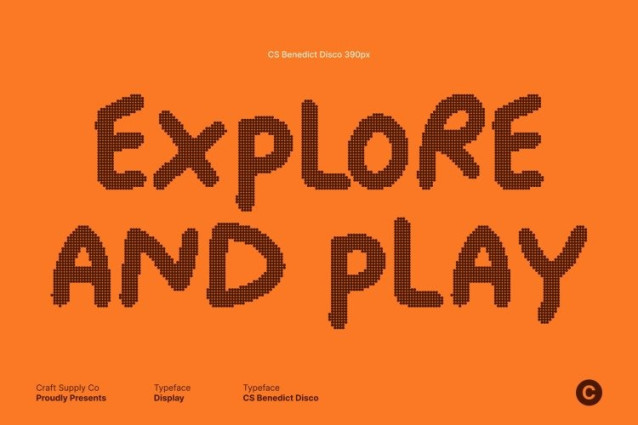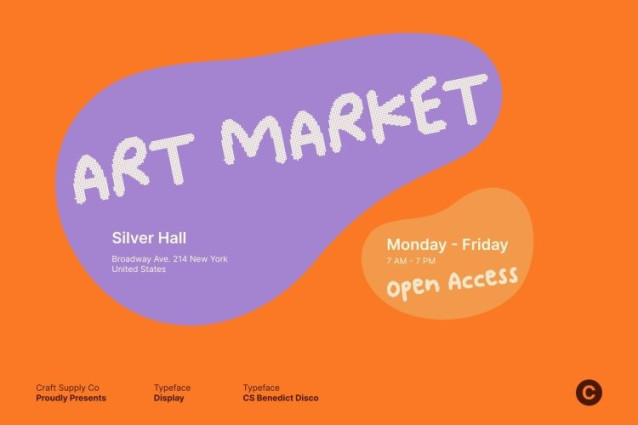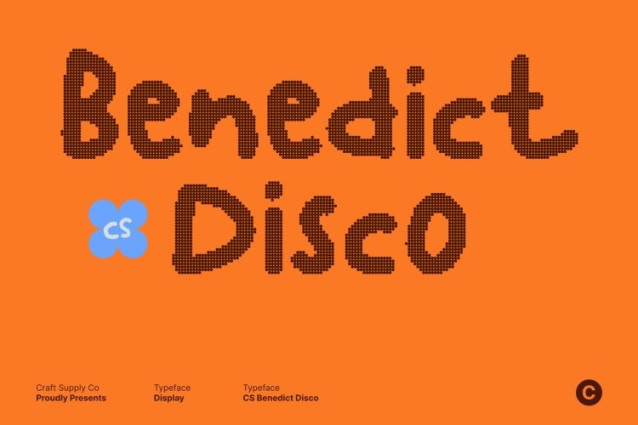
CS Benedict Disco Font
CS Benedict Disco Font This is a gritty, messy display font that celebrates freehand scribbles with a bold disco twist. Its irregular strokes and chaotic handwritten structure create a raw, expressive personality, while the disco style adds vibrant rhythm and visual excitement. The result is a font that feels spontaneous, playful, and full of character perfect for designs that refuse to be ordinary.
Messy Letterforms with Playful Movement
Every letter appears loosely sketched and intentionally imperfect, capturing the energy of quick, carefree scribbling. This unpolished aesthetic gives the font a lively sense of motion, enhanced by disco-inspired flair that brings sparkle and bounce to each word. It’s expressive, youthful, and bursting with fun.
Fun, Friendly, and Perfect for Creative Themes
This font is ideal for children’s designs, playful branding, and creative projects that need warmth and personality. From kids’ books and educational materials to craft packaging and cheerful logos, its friendly irregularity creates an inviting, hand-made feel that instantly connects with playful audiences.
Great for Posters, Party Graphics, and Casual Branding
Designed to stand out in expressive layouts, this font works beautifully in posters, social media visuals, event graphics, and fun product packaging. Its gritty scribble style combined with disco energy makes it perfect for party-themed designs, creative campaigns, and visuals that aim to feel energetic, joyful, and full of imagination.